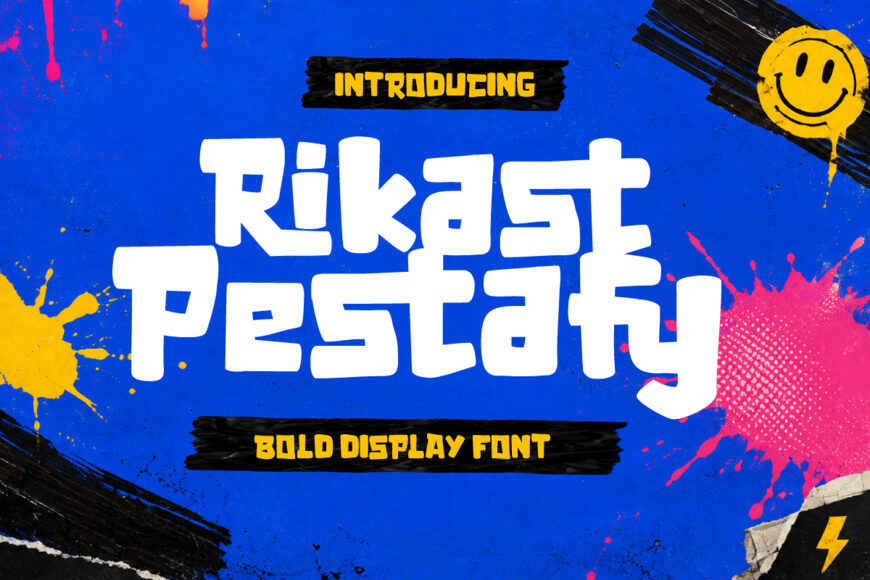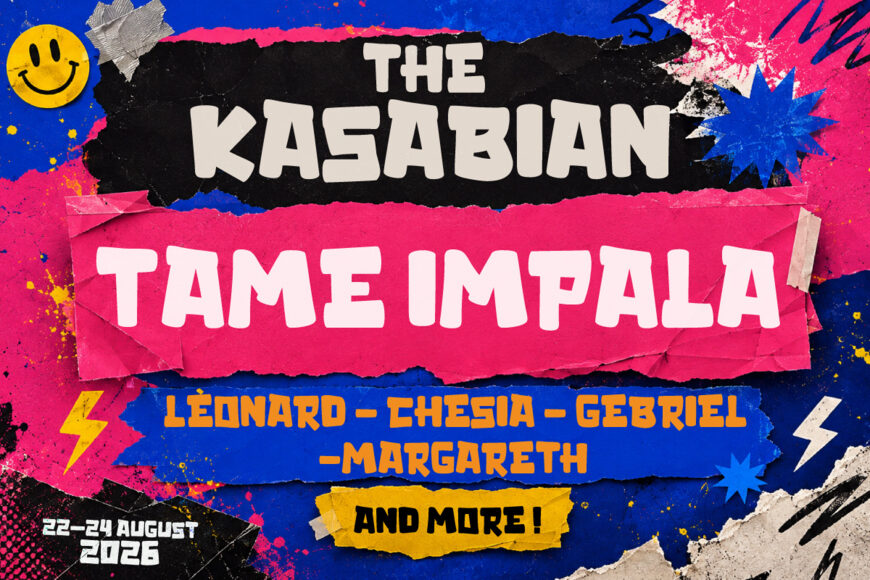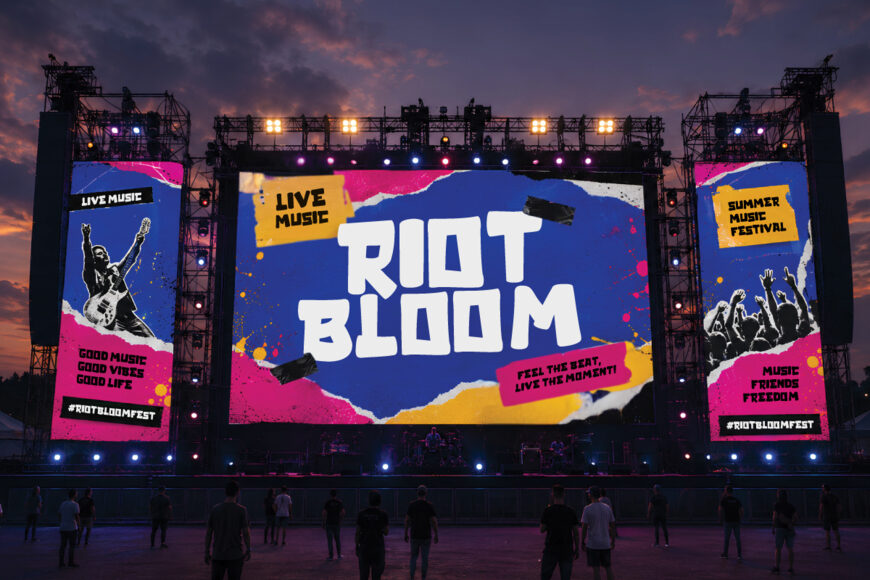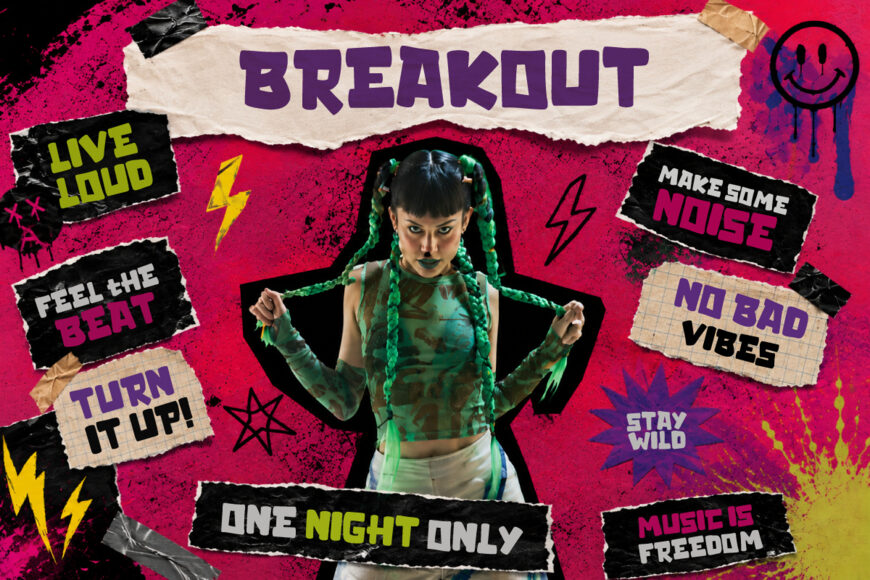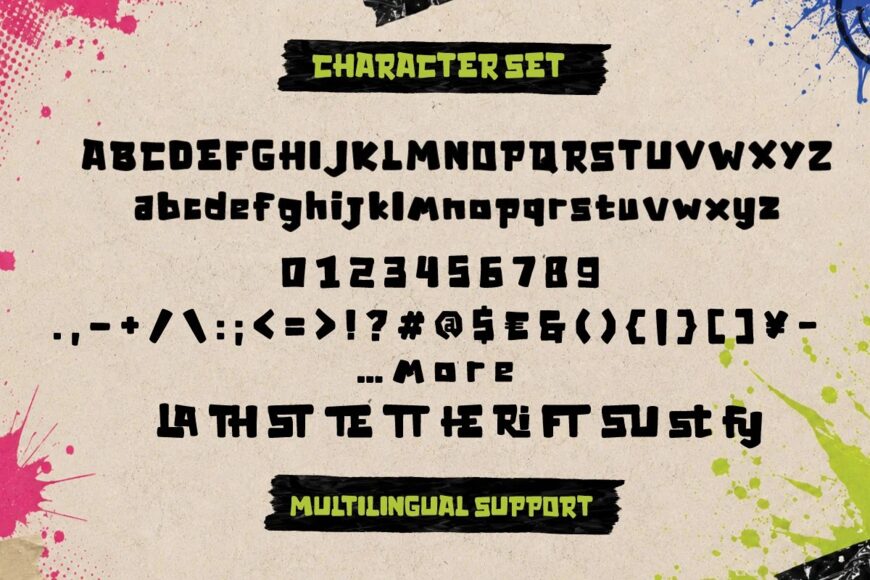
Rikast Pestafy is a bold, playful, and experimental display typeface created to bring strong visual energy to music, festival, concert, and creative event designs. Its chunky, heavy, and expressive letterforms create an eye-catching presence, making it ideal for powerful headlines with a fun, rebellious, youthful, and energetic personality.
This font is perfect for music festivals, concert posters, summer events, party promotions, artist lineups, stage branding, tour merchandise, event campaigns, social media promotions, and advertising projects that require high visual impact. Its distinctive character works especially well for designs that need to feel bold, modern, unconventional, and instantly attention-grabbing.